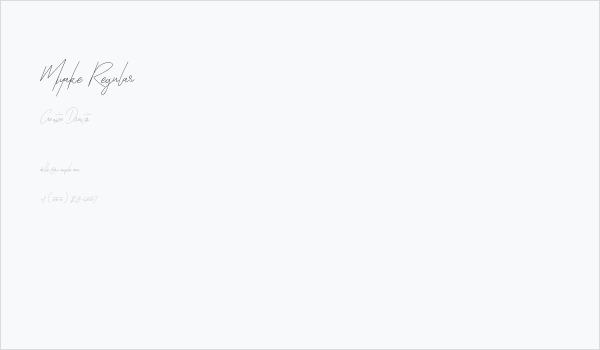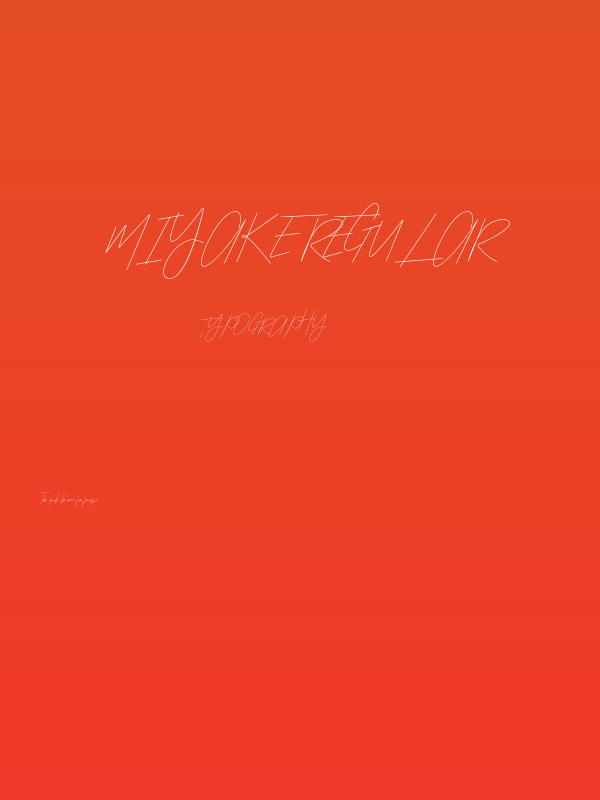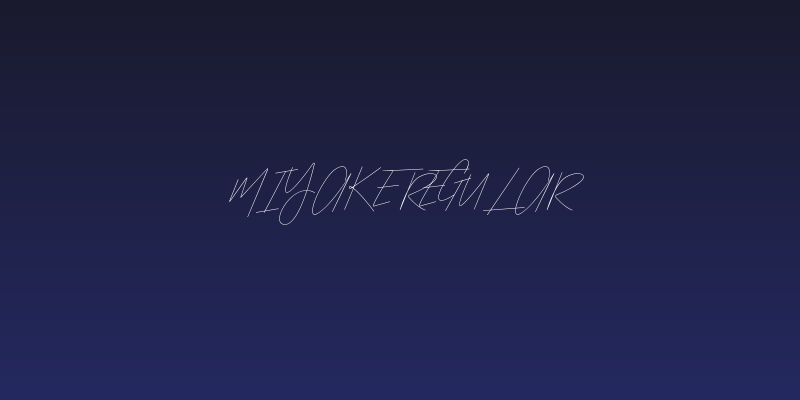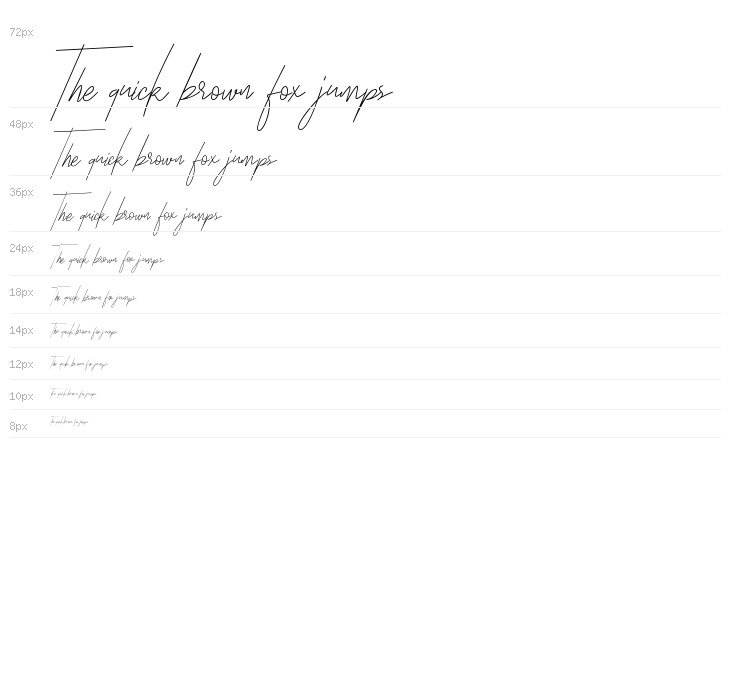
Miyake Regular Font
Miyake Regular Description
This font features a delicate and elegant handwritten style, characterized by its thin, flowing lines and cursive letterforms. The uppercase letters exhibit a graceful slant, while the lowercase letters maintain a consistent fluidity, enhancing the overall script-like appearance. The numerals and special characters are crafted with the same attention to detail, ensuring a cohesive look across all glyphs. The font's airy and light structure makes it ideal for projects that require a touch of sophistication and elegance.
Overall StyleElegant, Sophisticated
Use CaseLogos, Invitations, Artistic projects
Proposed ProjectsIdeal for wedding invitations, personal branding, elegant stationery, and artistic projects requiring a sophisticated touch.